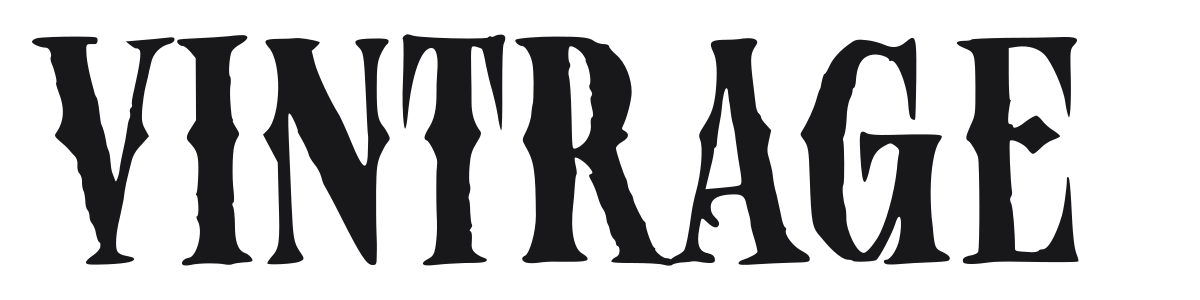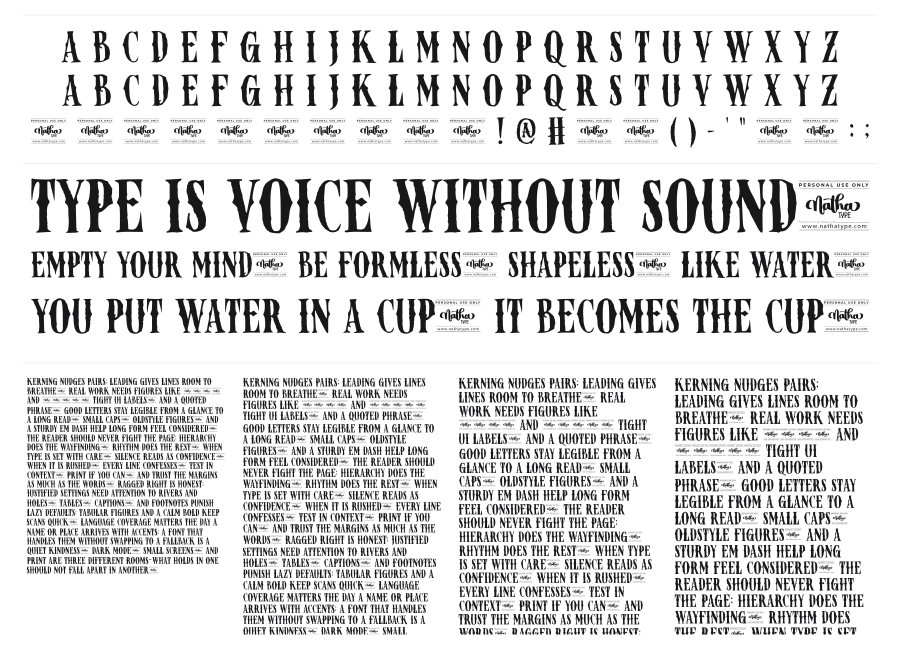
Vintrage
Vintrage is a condensed distressed serif with deep Victorian roots, built on high stroke contrast and heavy ink-texture erosion across every stem and serif. The roughened surfaces evoke aged letterpress prints, weathered signage, and 19th-century wood type at its most dramatic. It suits bold headline work anywhere that needs historical weight and raw character.